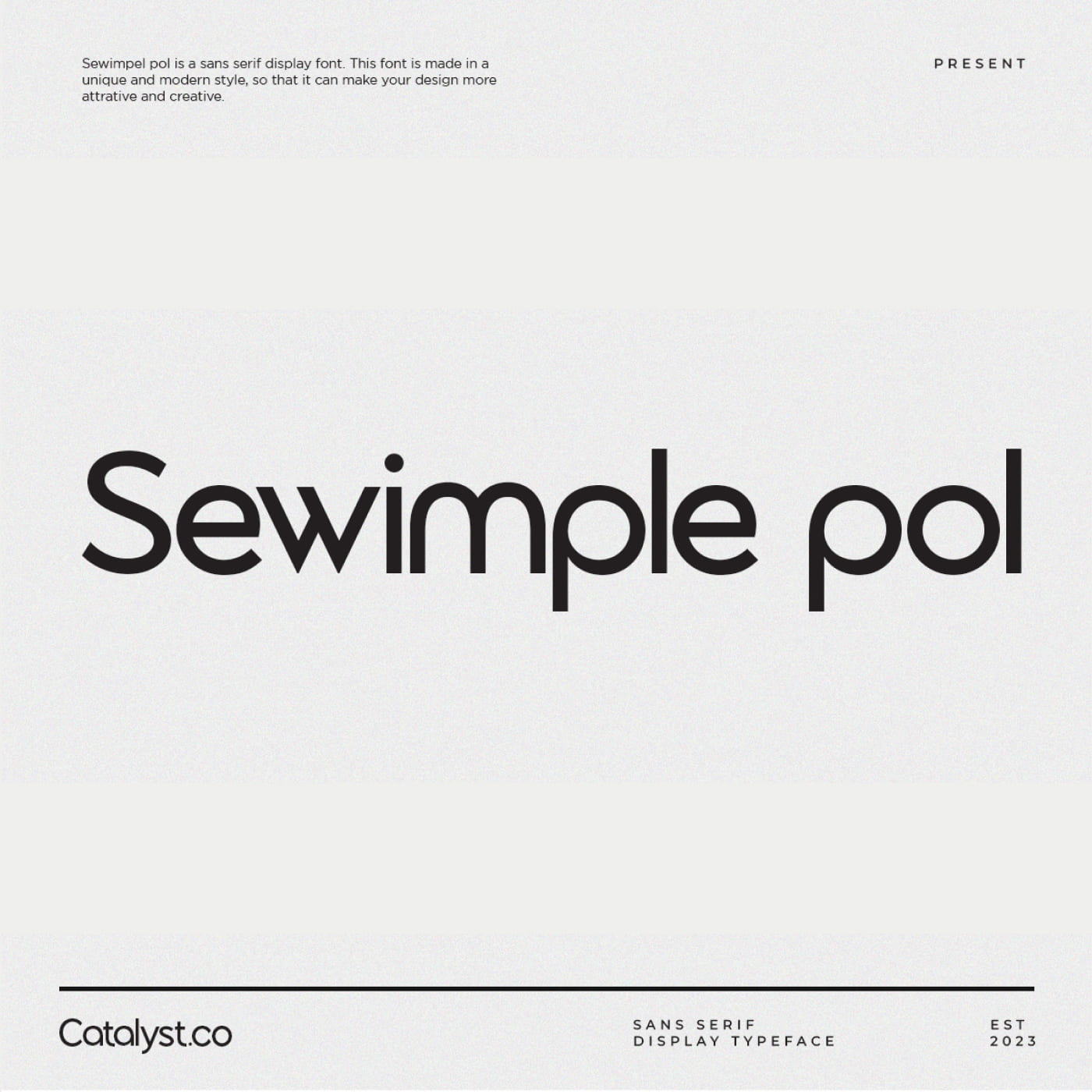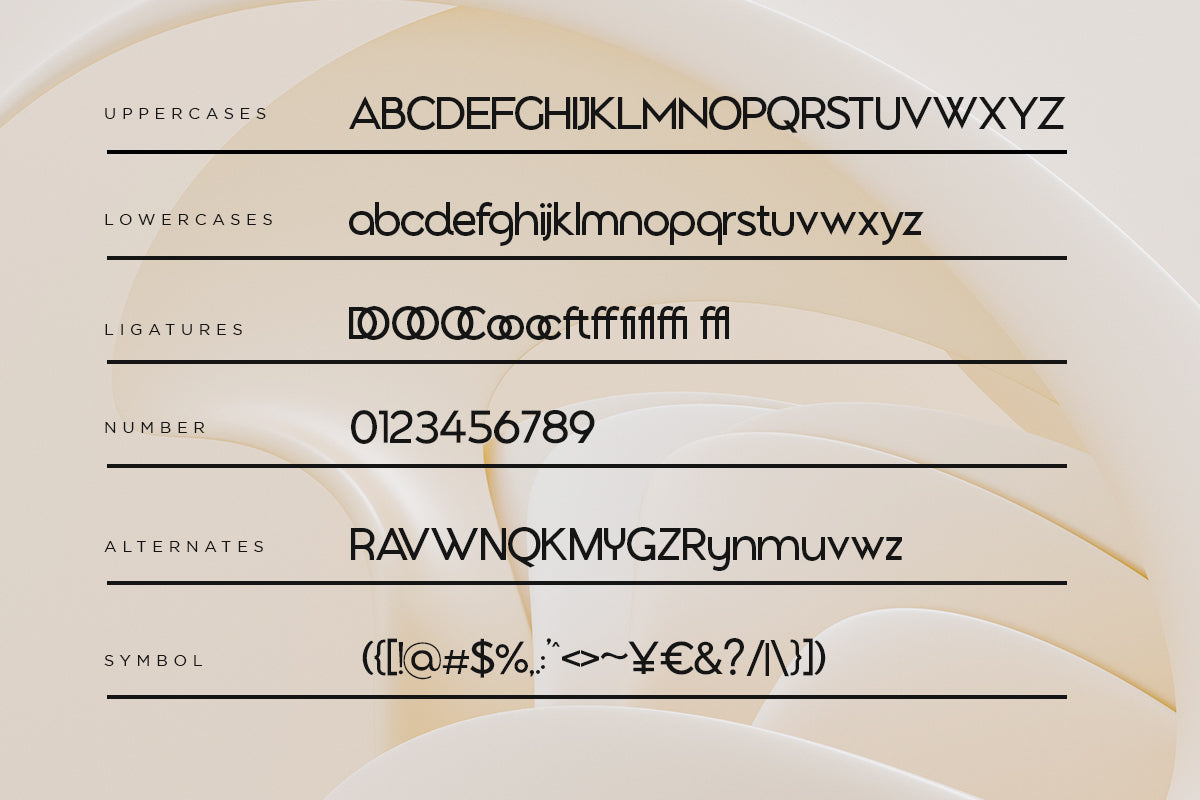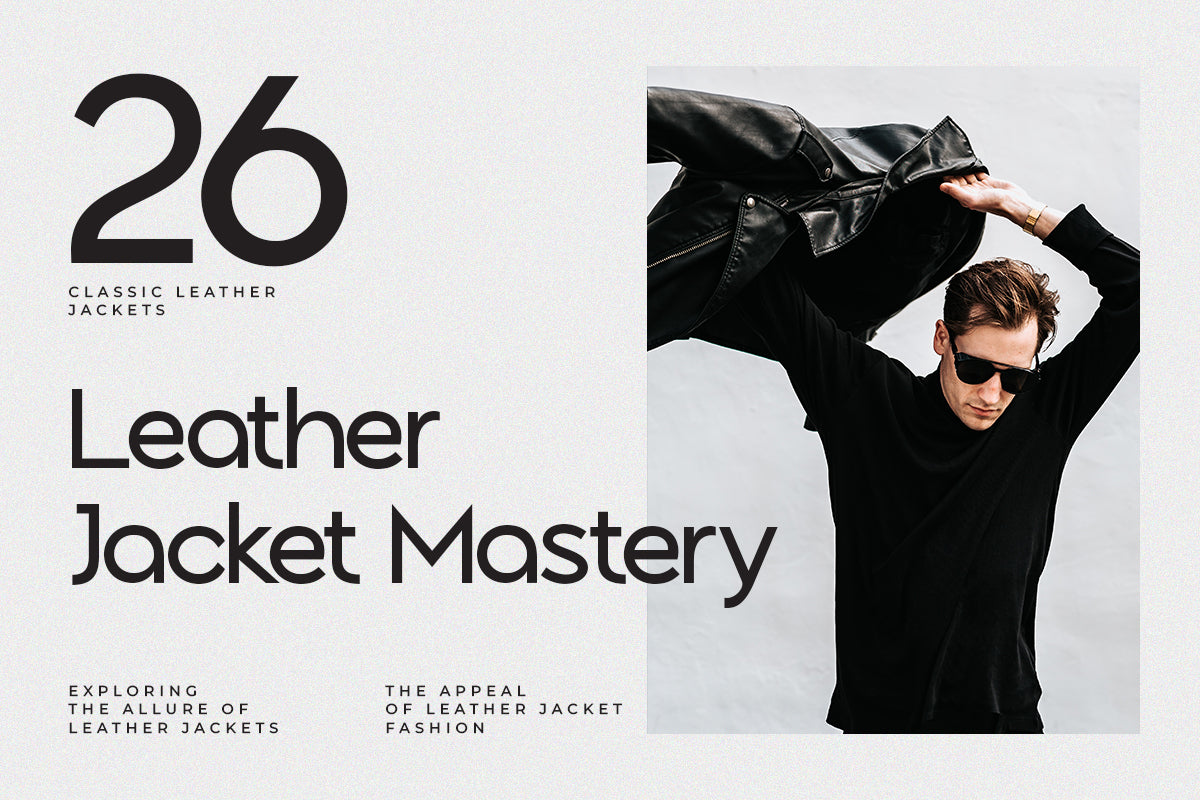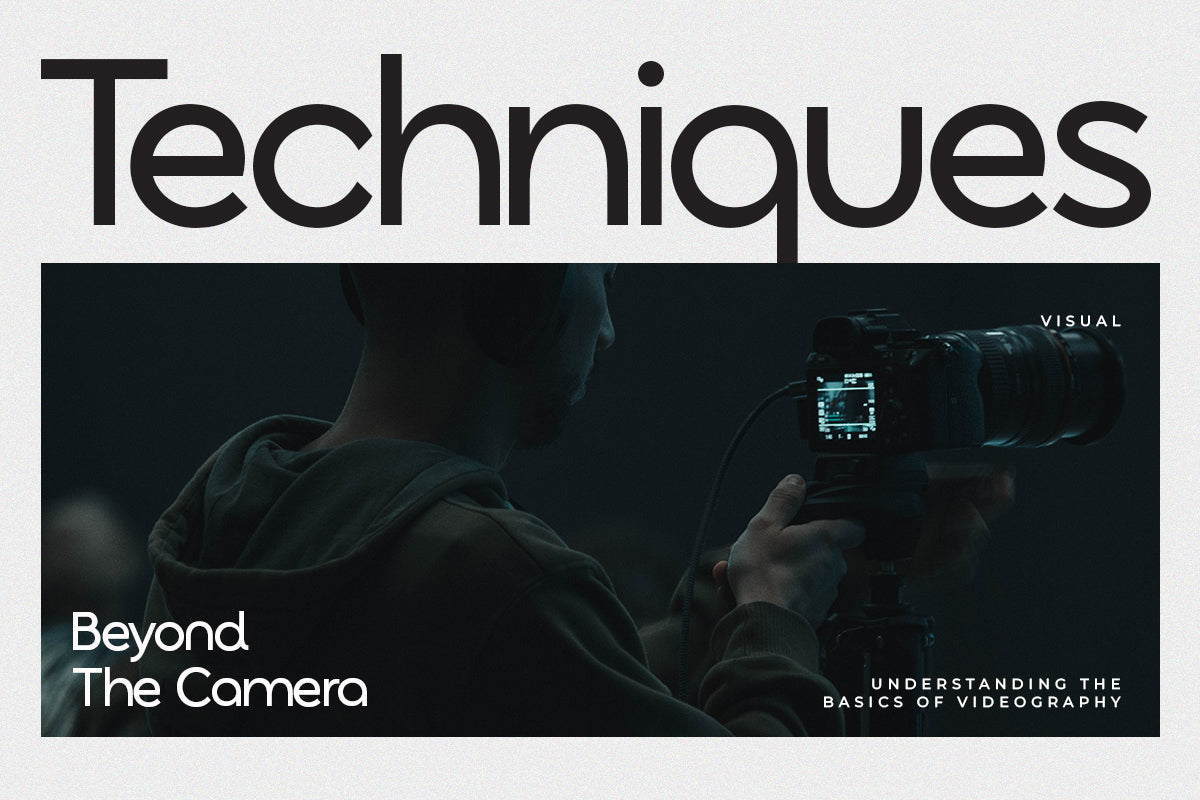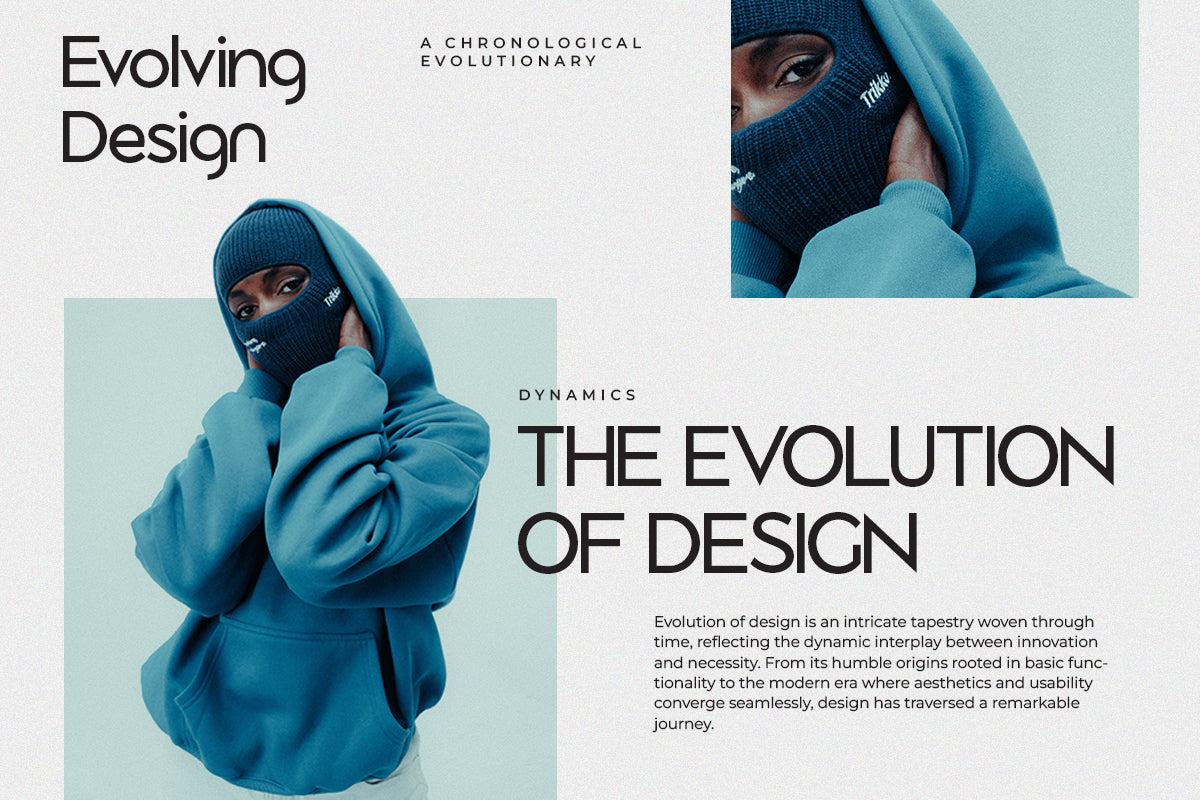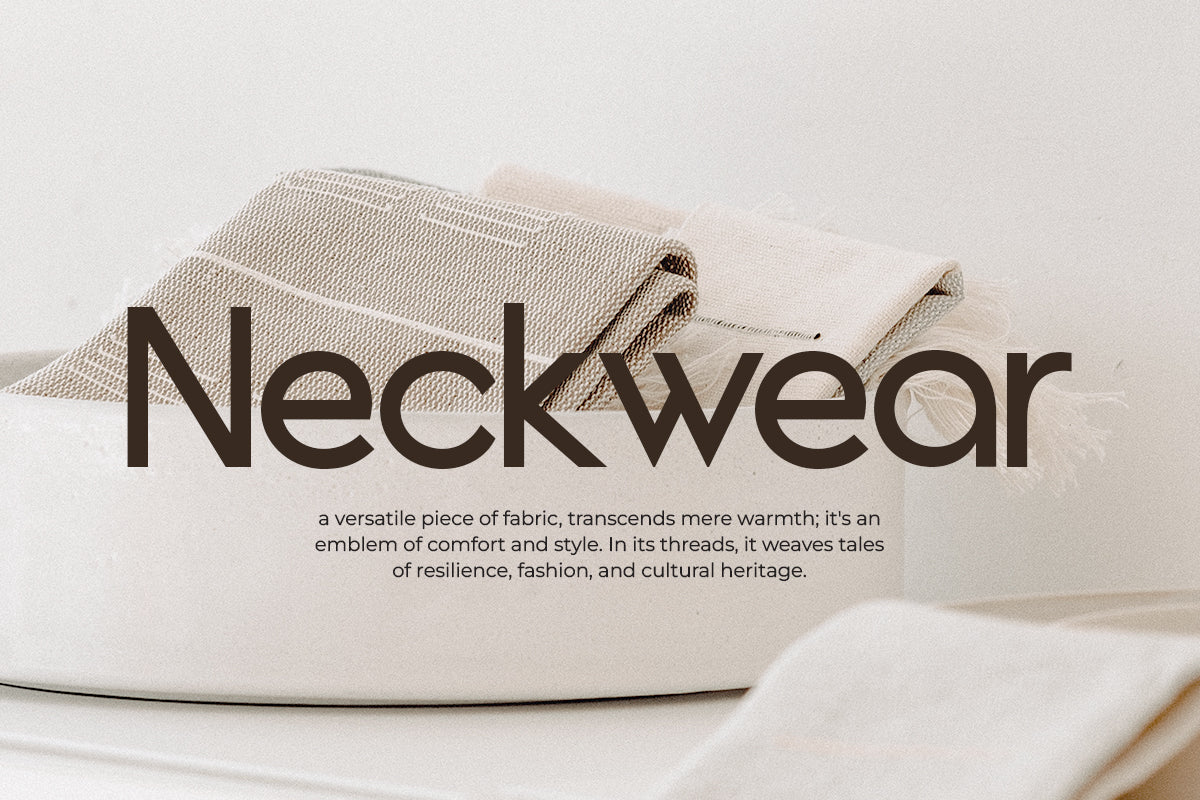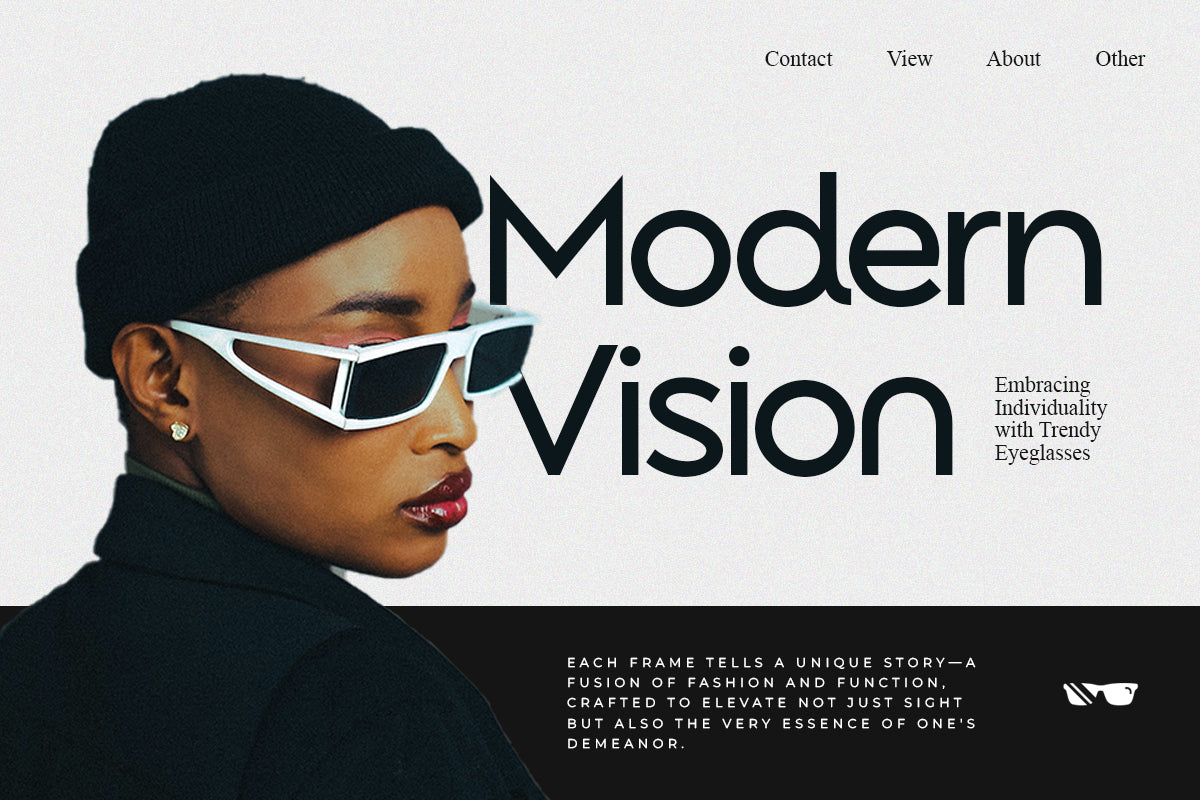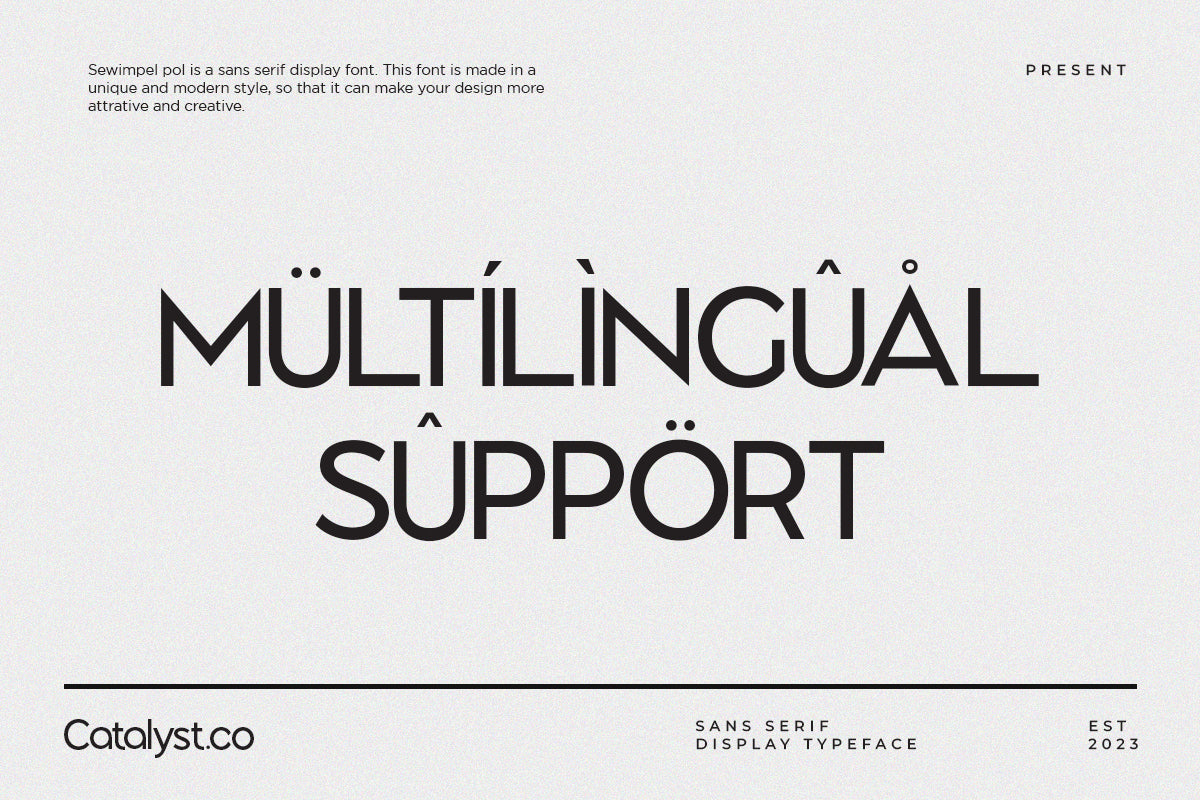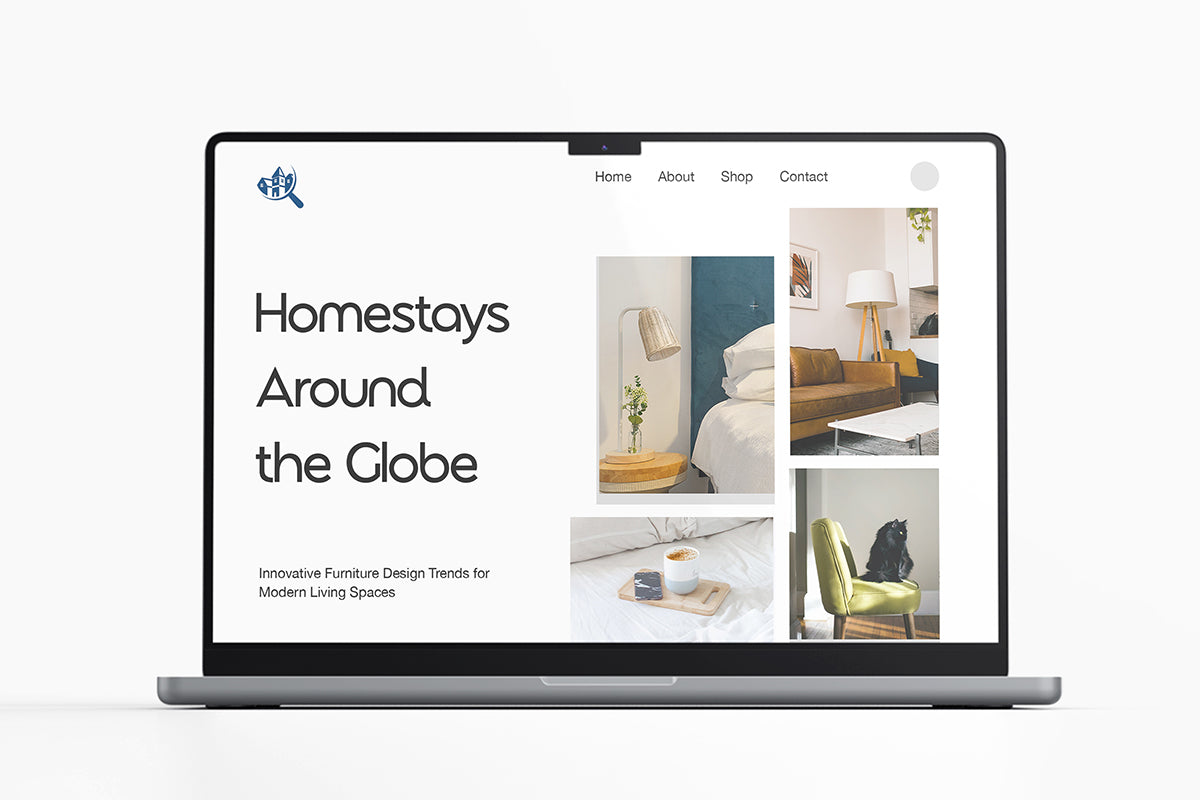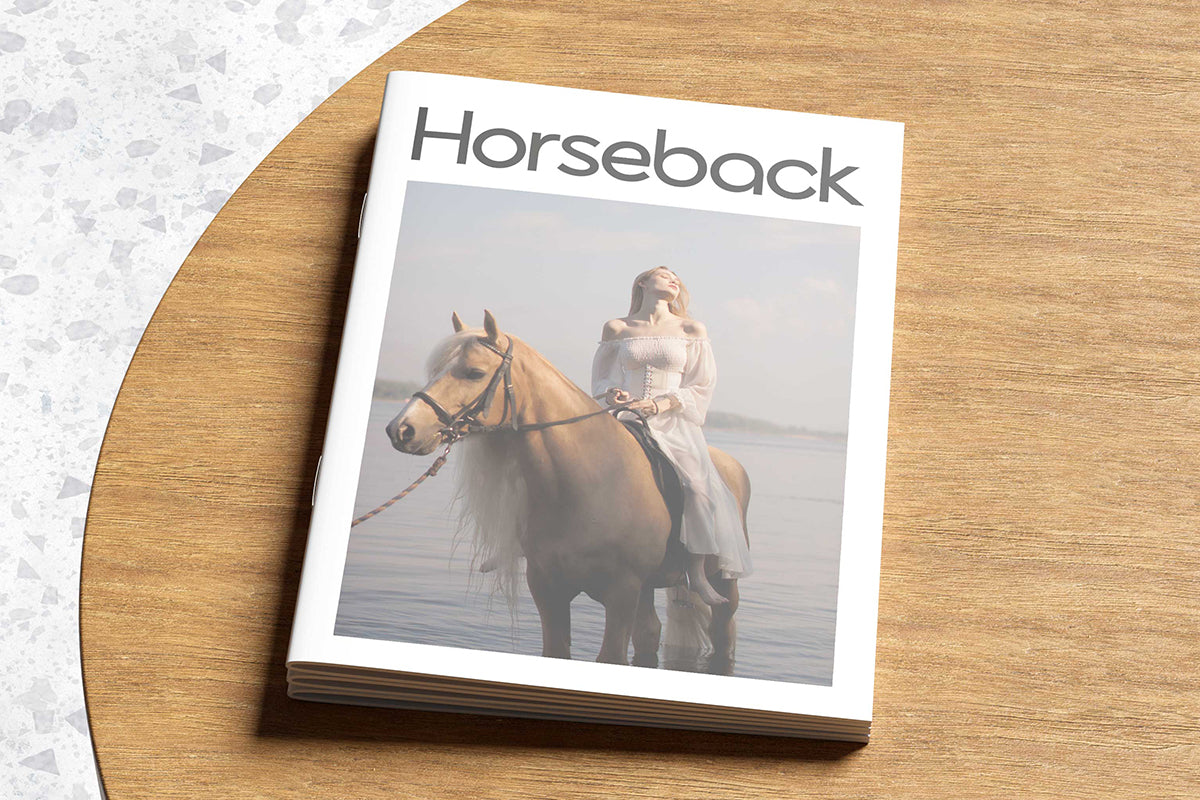
Sewimple Pol Sans Serif Display Typeface Font
Sewimple Pol Sans Serif Display Font is a modern sans serif display typeface featuring smooth geometric forms, rounded details, and a clean contemporary structure. Its unique ligatures and stylistic alternates add character while maintaining a minimal, refined aesthetic suitable for branding, editorial layouts, product packaging, and digital interfaces. The balanced proportions and sleek letterforms create a versatile design tool for both creative and professional projects. Includes uppercase, lowercase, ligatures, alternates, numerals, and symbols in OTF, TTF, and WOFF formats.
Relevance and Use Cases is perfect for branding, editorial titles, UI/UX headers, product packaging, posters, social media layouts, digital ads, minimalist design systems, and modern visual identities requiring a clean rounded sans serif. Suitable for branding projects, clean UI/UX layouts, editorial titles, posters, product packaging, minimalist campaigns, social media visuals, digital branding kits, and modern geometric design systems.
Sewimple Pol Sans Serif Display Typeface Font is a geometric sans serif typeface with rounded details, ligatures, and stylistic alternates. It includes uppercase and lowercase letters, numerals, punctuation, and multilingual support in OTF, TTF, and WOFF formats.